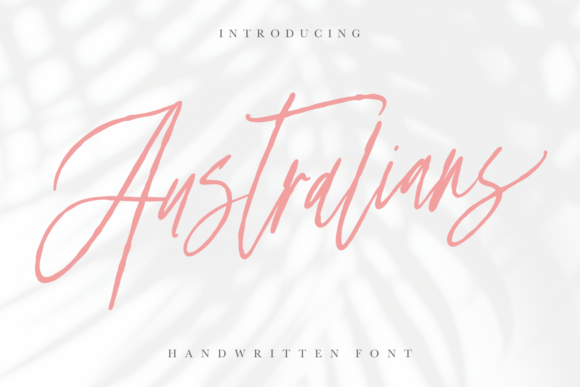
The Ultimate Guide to Australians Font: A Relaxed and Original Handwritten Font
I’ll never forget the design moment when I stumbled upon the Australians font. I was working on a project for a client who wanted a unique, handwritten font that would give their brand a personal touch. I had spent hours scouring the internet for the perfect font, but nothing seemed quite right. That was until I discovered Australians. This relaxed and original handwritten font has been a game-changer for my designs, and I’m excited to share its beauty with you! ✨
An Honest Review of Australians Font
So, what makes Australians font so special? Let’s dive into the good stuff and a few quirks I’ve discovered. 🤔
- ✨ Unique and original design that stands out from the crowd
- ✅ Relaxed and casual vibe that’s perfect for creative projects
- ✅ Works beautifully for both digital and print projects
- ⚠️ Some characters may not work well in all contexts, such as in tables or alongside certain symbols
- ⚠️ Limited multilingual support, so it’s best used for English or similar languages
The Backstory Behind Australians Font
The story behind Australians font is one of creativity and inspiration. While the actual designer is unknown, it’s clear that they were on a mission to create a unique and original handwritten font that would stand out from the crowd. The result is a font that’s both timeless and modern, perfect for designers, crafters, and creative hobbyists alike.
Q: What is Australians font?
A: Australians font is a relaxed and original handwritten font that’s perfect for creative projects.
Q: What languages does Australians font support?
A: Australians font has limited multilingual support, so it’s best used for English or similar languages.